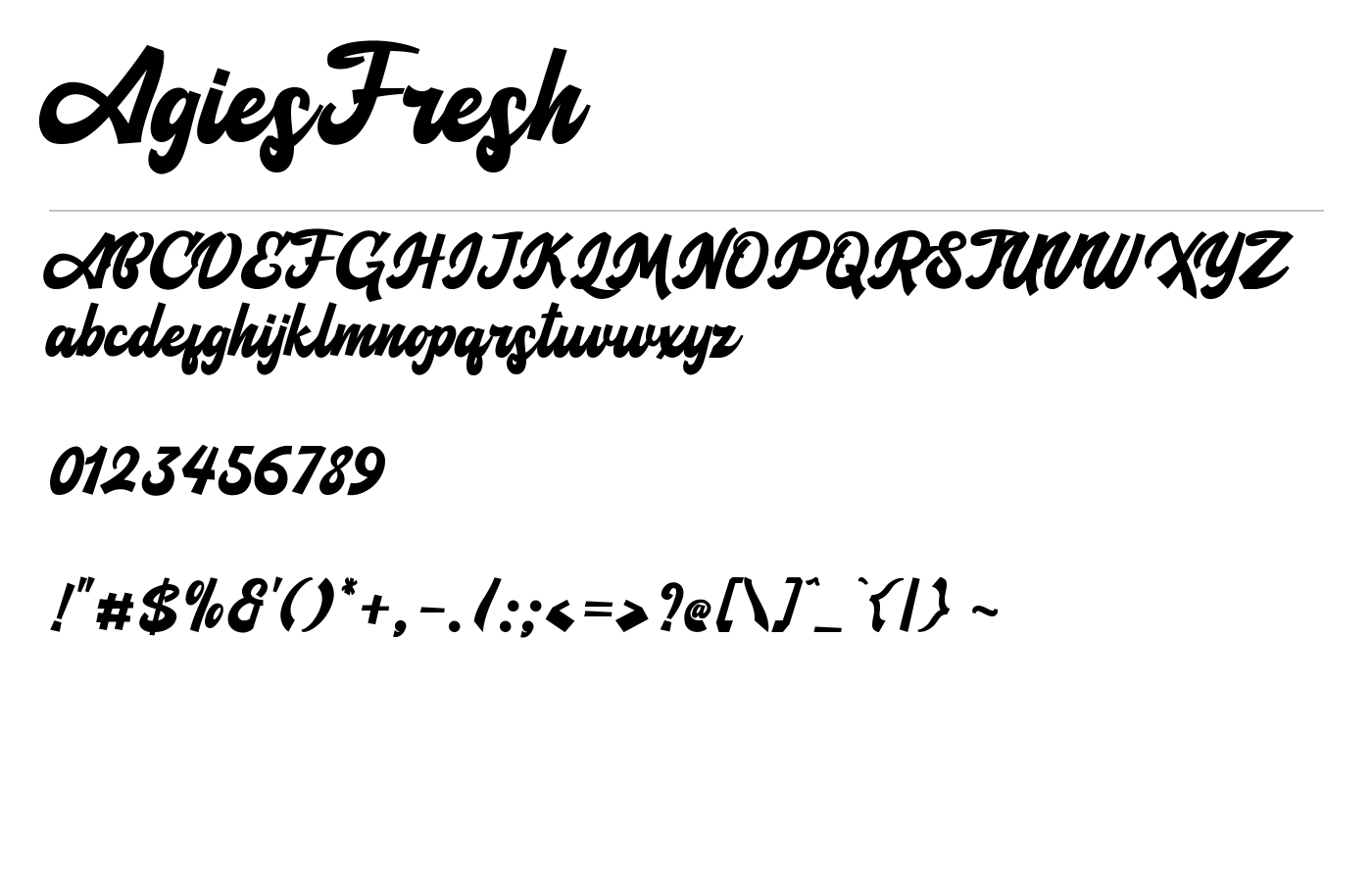
AgiesFresh is a bold, script-style font with a lively, hand-lettered feel that combines thick strokes and smooth curves to create a sense of energetic charm. Its flowing letterforms and distinct italic slant make it perfect for branding, logos, and headlines where a friendly yet confident personality is desired. This font works especially well in creative and lifestyle contexts, adding a fresh and stylish touch to any design.
AgiesFresh Font